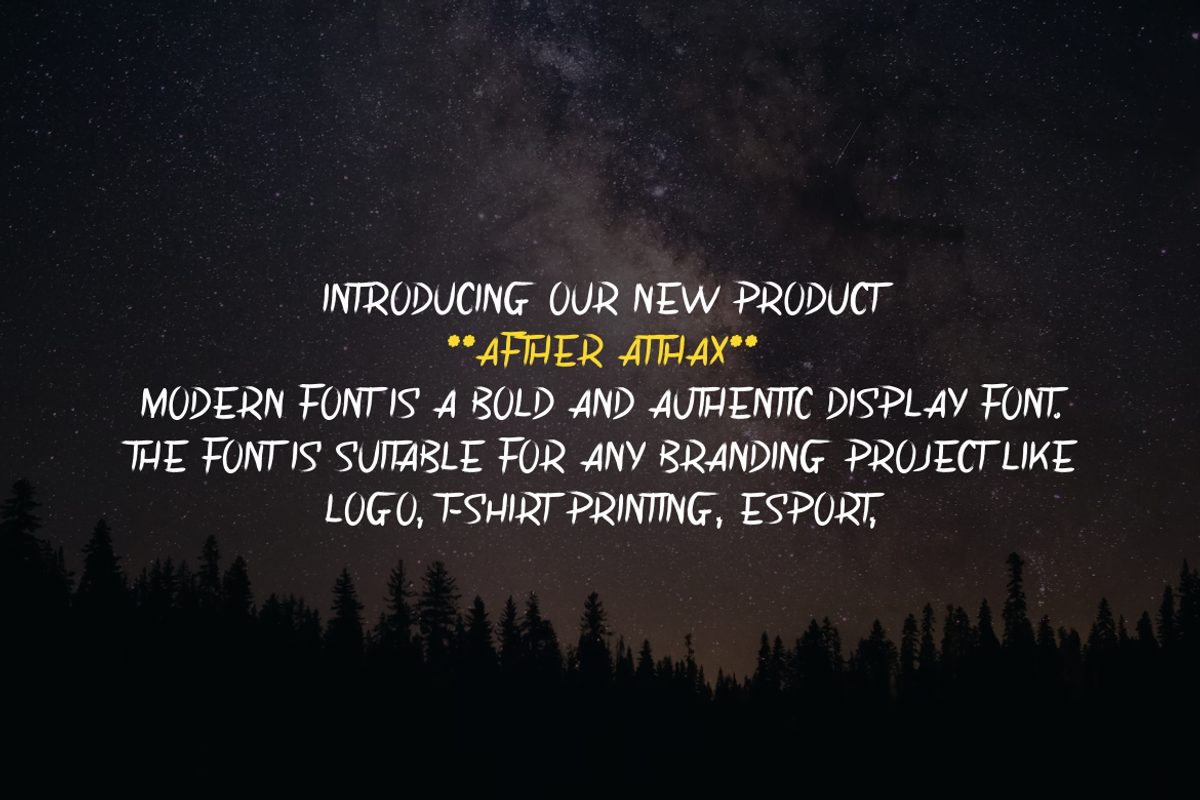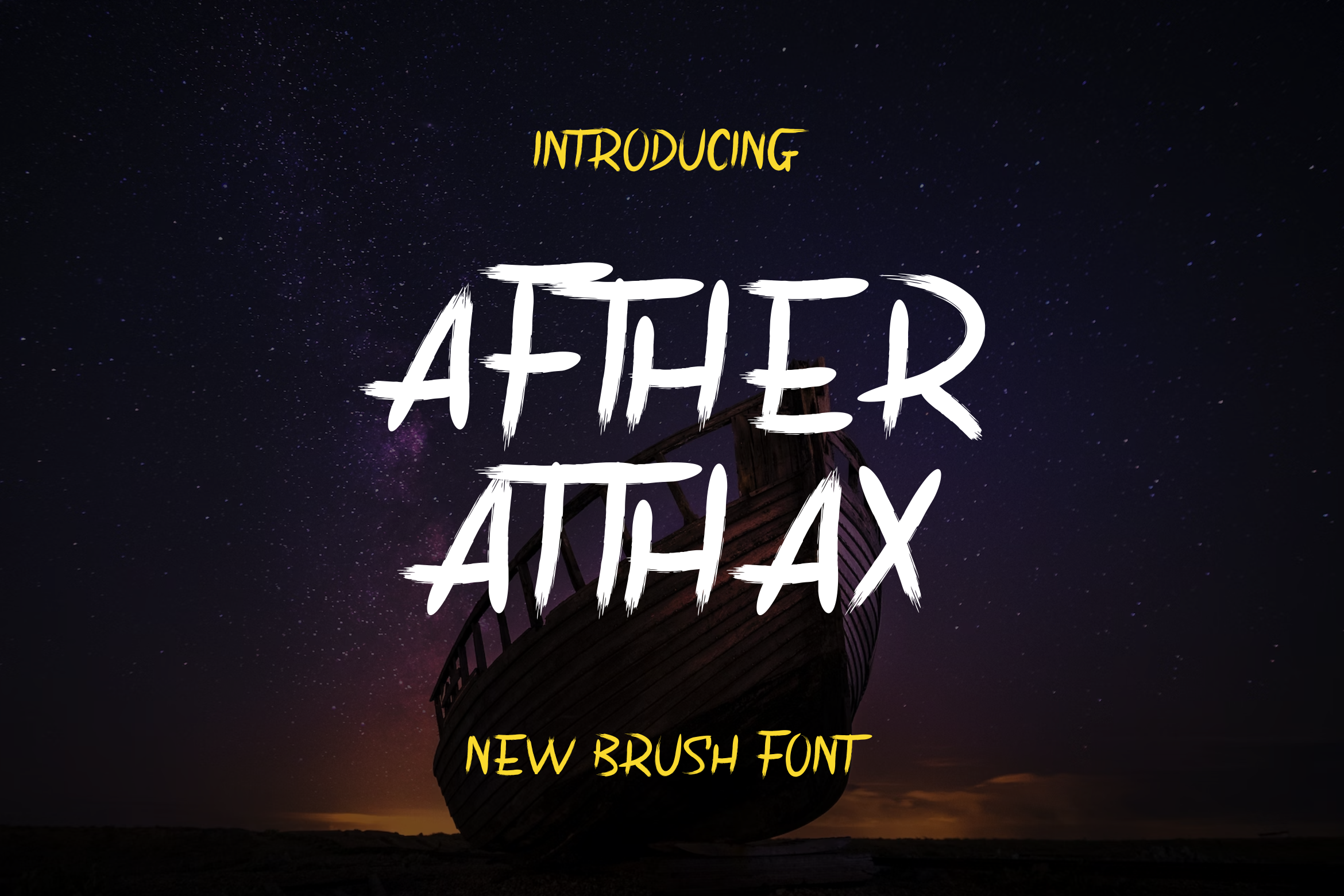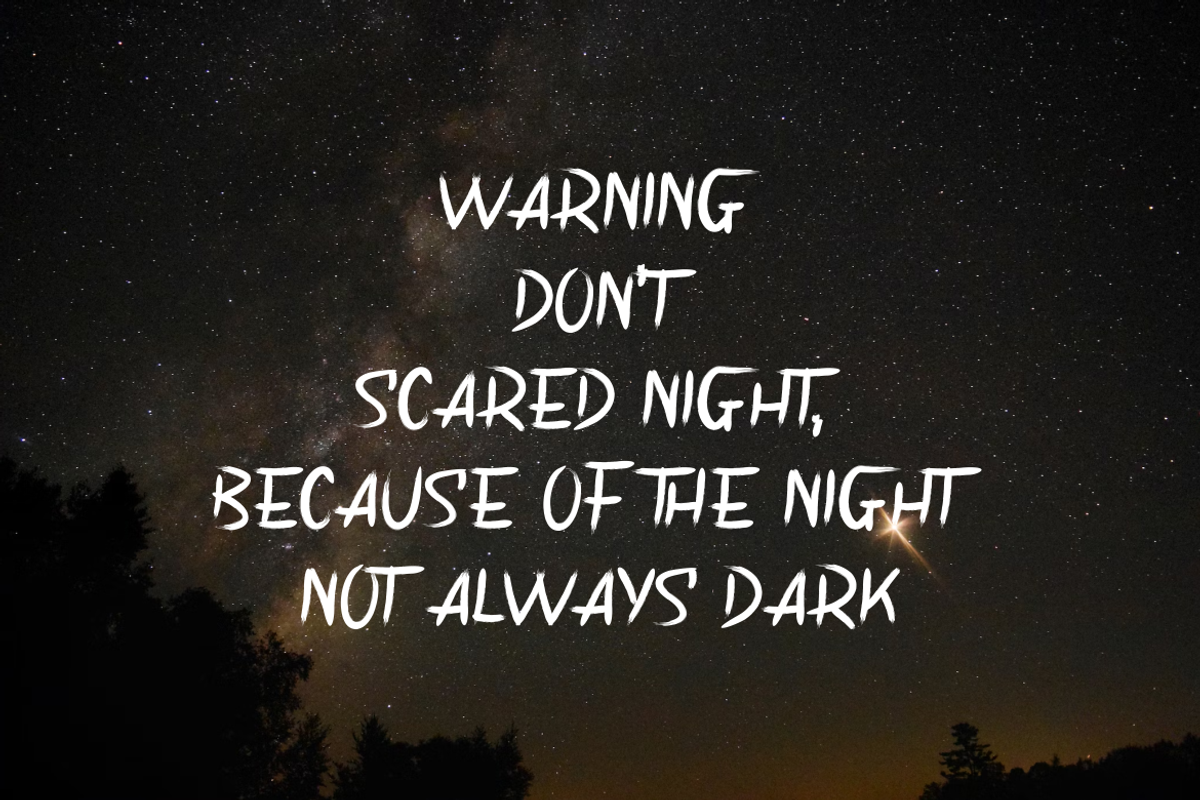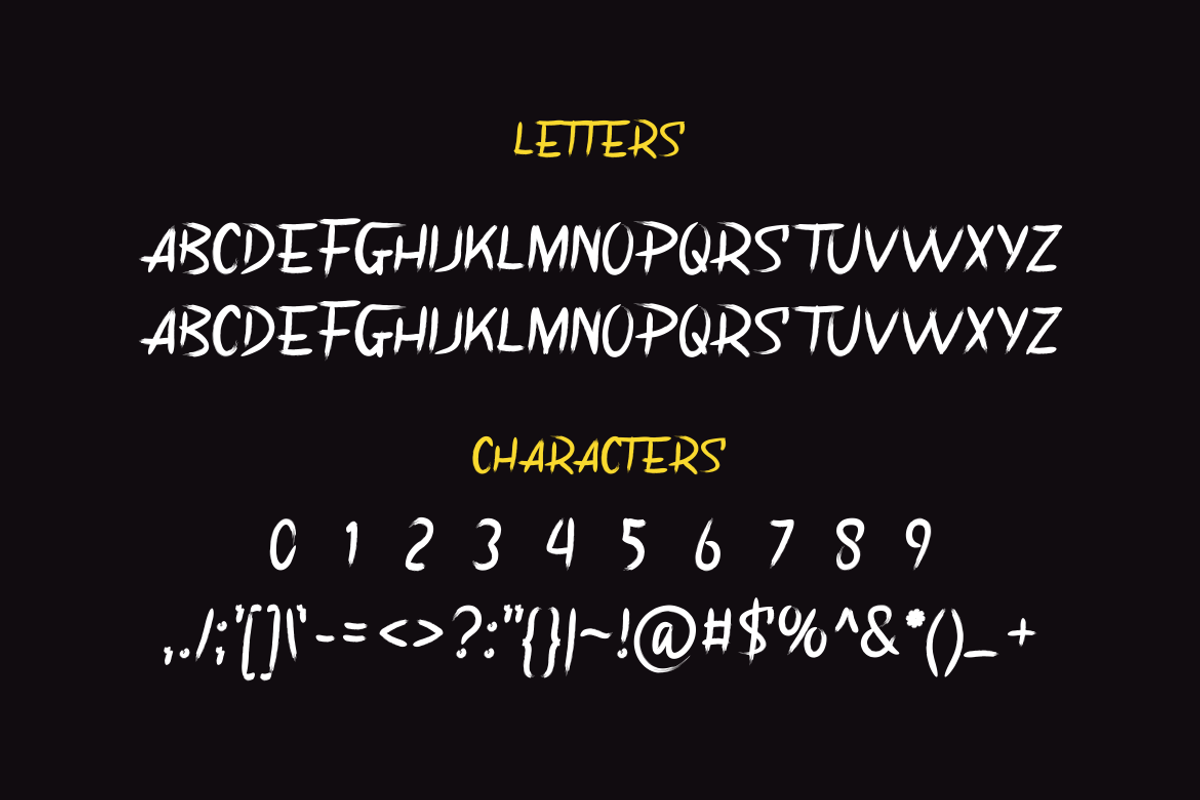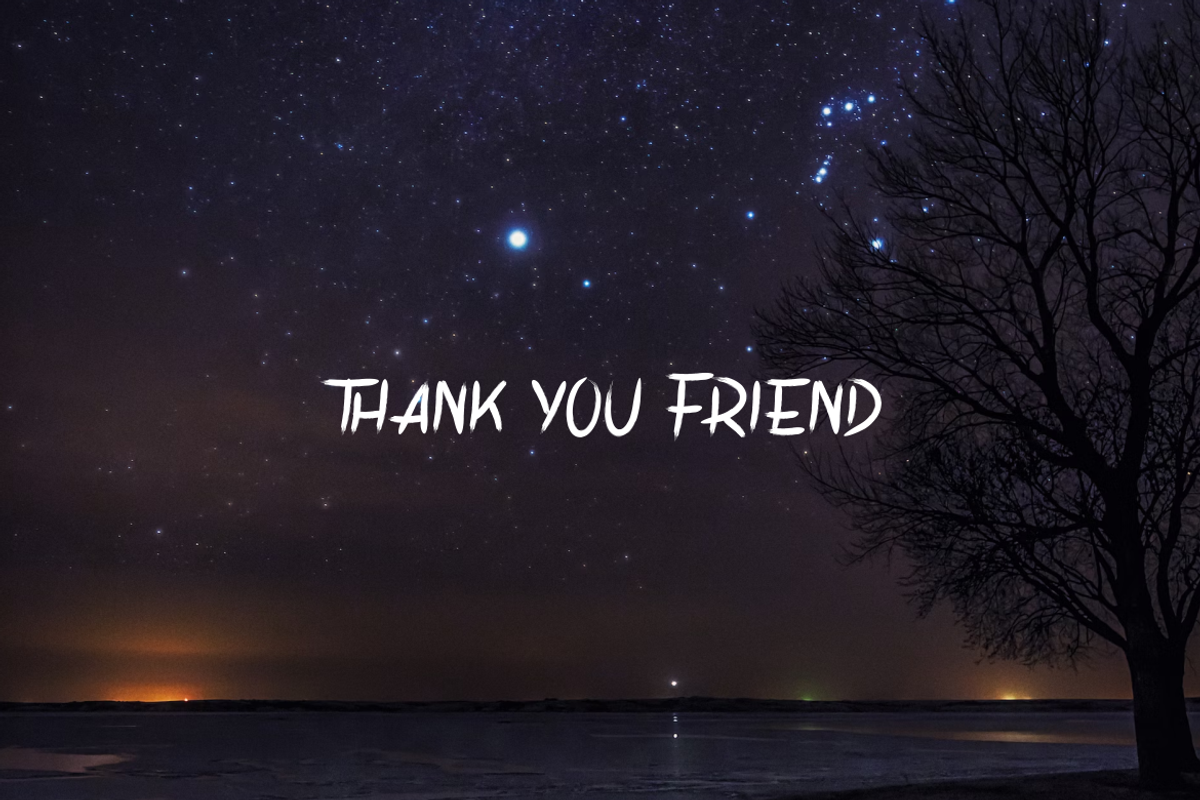
Afther Atthax Font
Introducing our new product Afther Atthax Font - Modern Font
Afther Atthax Font - Modern Font is a bold and authentic display font. The font is suitable for any branding project like logo, esport, and many more. outstanding in a wide range of contexts.